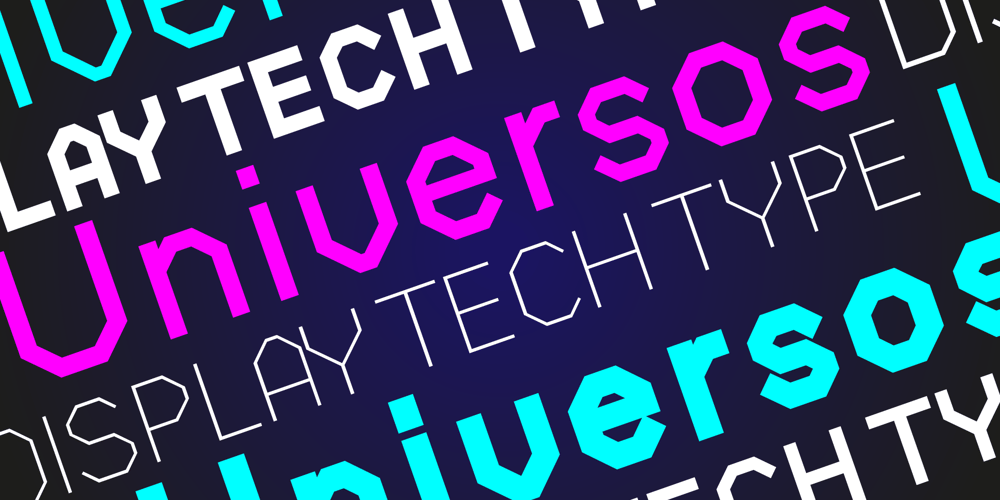
Universos
Universos Font Family was designed by Pedro Biz and published by Turto Studio. Universos contains 6 styles and family package options. Introducing Universos, a cutting-edge sans-serif typeface crafted to embody the future of design and technology. Perfectly tailored for the digital age, Universos is a versatile and dynamic typeface that elevates any project with its sleek, modern aesthetic.Universos comes in seven designed weights: Thin, Extra Light, Light, Regular, Semibold, Bold and Extra Bold. Each weight has been developed to ensure clarity and impact, making it ideal for a range of applications, from user interfaces and digital displays to bold headlines and sophisticated branding.The typeface boasts clean, geometric lines and precise angles, capturing the essence of technological advancement. Its characters are designed with a slightly condensed structure, enhancing readability while maximizing space efficiency. This feature makes Universos particularly effective in screen-based environments where space and legibility are crucial.Universos’ tech-inspired style is characterized by its uniform stroke widths and minimalistic design, exuding a sense of precision and sophistication. The typeface includes distinctive elements like rounded corners and subtle cuts that give it a unique, futuristic feel. This balance of simplicity and innovation ensures that Universos stands out in any context, whether it’s used in a minimalist app design or a high-impact marketing campaign.Beyond its aesthetic appeal, Universos is optimized for performance across various digital platforms. Its extensive character set supports multiple languages, making it a versatile choice for global projects. Additionally, the typeface includes advanced typographic features such as ligatures, alternate characters, and numeral styles, providing designers with a comprehensive toolset to create visually compelling layouts.Embrace the future with Universos, the typeface that seamlessly blends technological elegance with functional versatility, setting a new standard in modern typography.